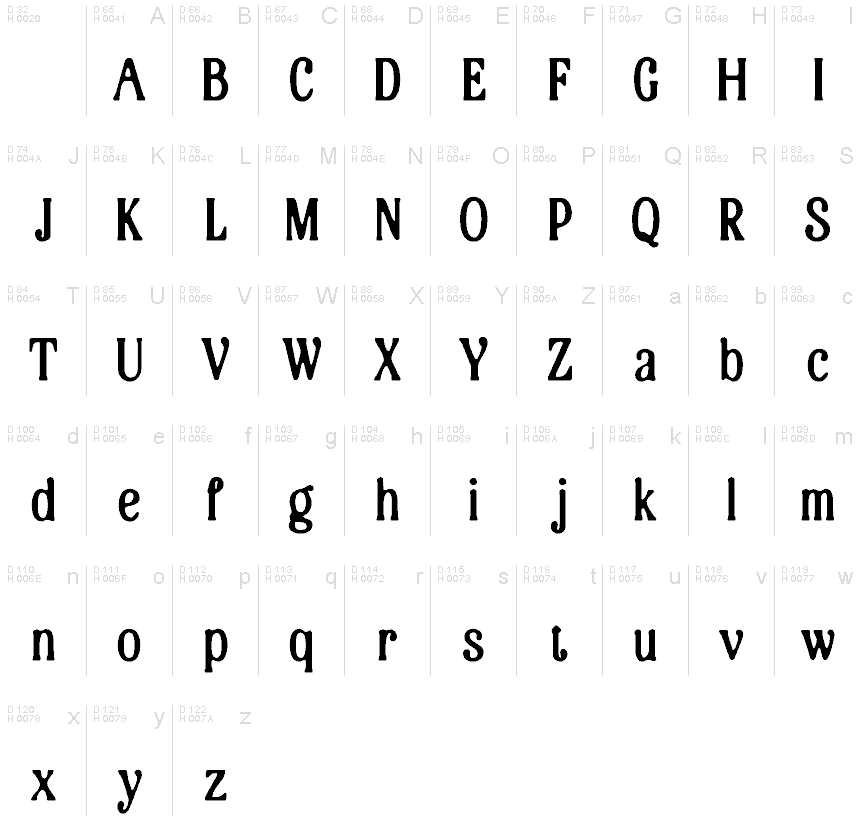
Helvine Blur Demo Regular
Helvine Blur font by Craft Supply Co introduces a retro-inspired flair combined with vintage charm. This condensed serif free font exhibits smooth, rounded forms that feel friendly and approachable. A delicate balance of old and new, its style communicates a subtle yet captivating character.